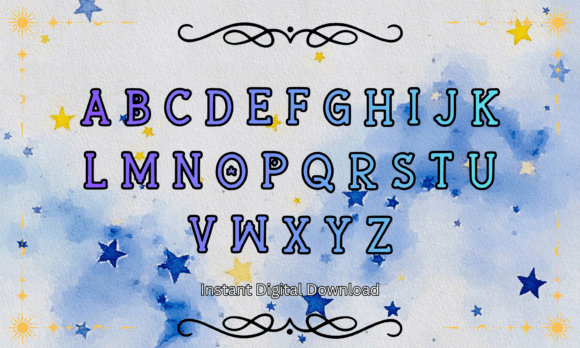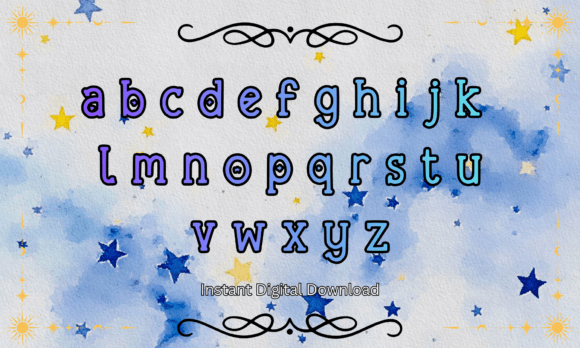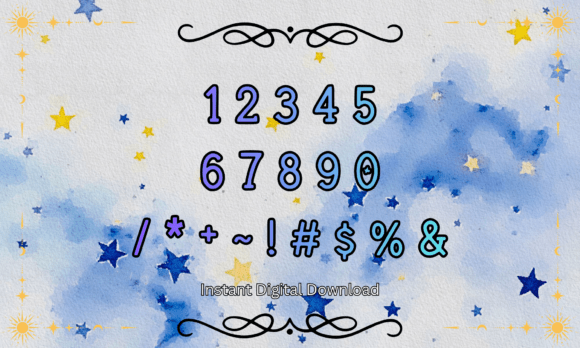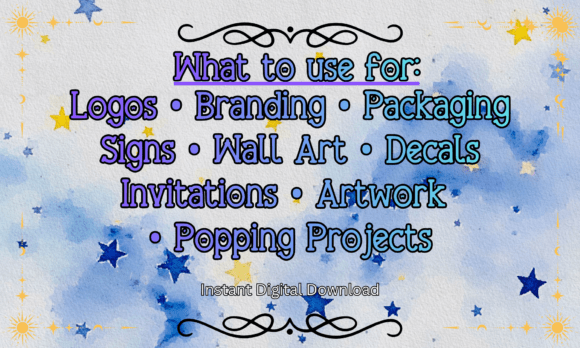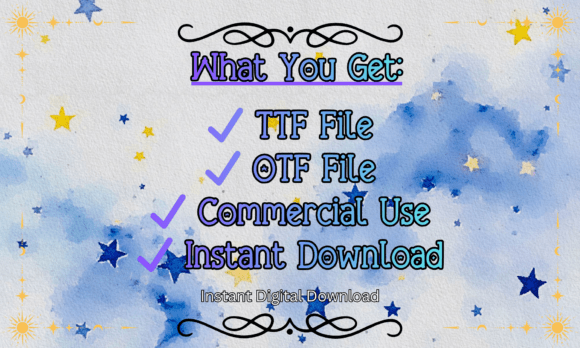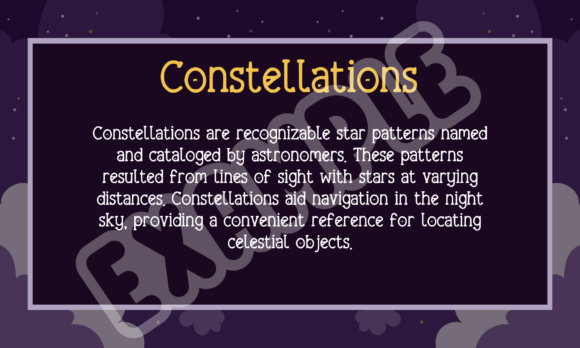
Add a Soft, Playful Celestial Touch to Your Designs with Celestial Star Font
Are you looking for a font that can add a touch of magic to your designs? Look no further than the Celestial Star Font, a cute and rounded display font that features star-inspired details and a dreamy aesthetic. This font is perfect for creators who want to add a fun, clean, and versatile touch to their designs with a magical twist.
The Celestial Star Font is perfect for a wide range of design projects, including:
- Stickers & decals
- Kids designs
- Branding & logos
- T-shirts & apparel
- Wall art
- Sublimation designs
- Cute small businesses
Font Style
The Celestial Star Font is a rounded display font that features:
- Cute & playful design
- Star-themed details
- Clean and easy to read
- Aesthetic & modern look
Why Choose the Celestial Star Font?
The Celestial Star Font is a unique and versatile font that can add a touch of magic to your designs. Here are just a few reasons why you should choose this font:
- Unique Design: The Celestial Star Font features a unique and playful design that’s sure to stand out.
- Versatile: This font is perfect for a wide range of design projects, from stickers and decals to branding and logos.
Tips for Using the Celestial Star Font
Here are a few tips for using the Celestial Star Font:
- Use it for Headings: The Celestial Star Font is perfect for headings and titles, where you want to make a bold statement.
- Pair it with Other Fonts: Try pairing the Celestial Star Font with other fonts for a unique and interesting look.
- Use it for Kids Designs: The Celestial Star Font is perfect for kids designs, such as stickers, coloring pages, and more.